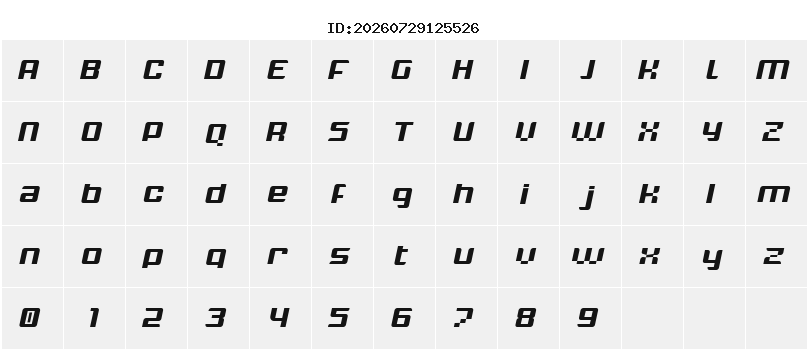
Krunch Preview
• Font Name: Krunch
• Designer: NimaVisual
About Krunch.ttf
Krunch.ttf is a modern, elegant sans-serif font designed for ultimate readability and visual harmony. Perfect for branding, headlines, web design, and print materials.